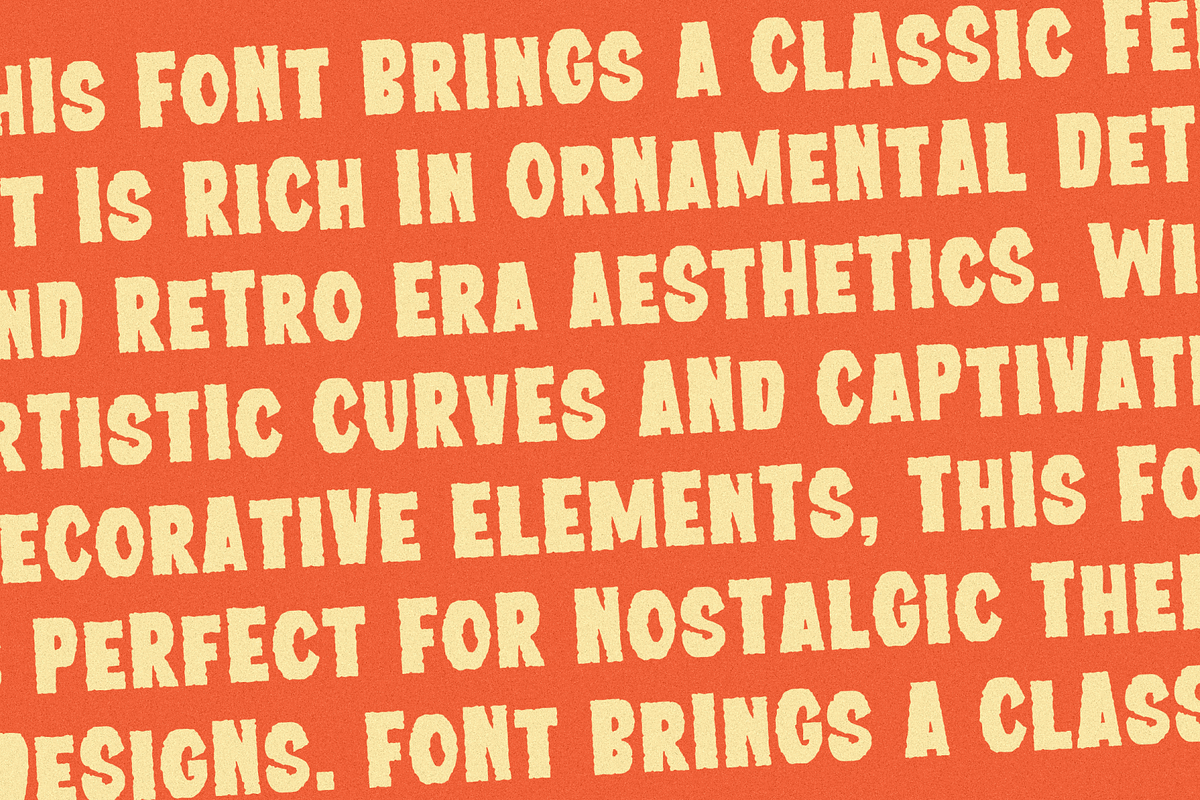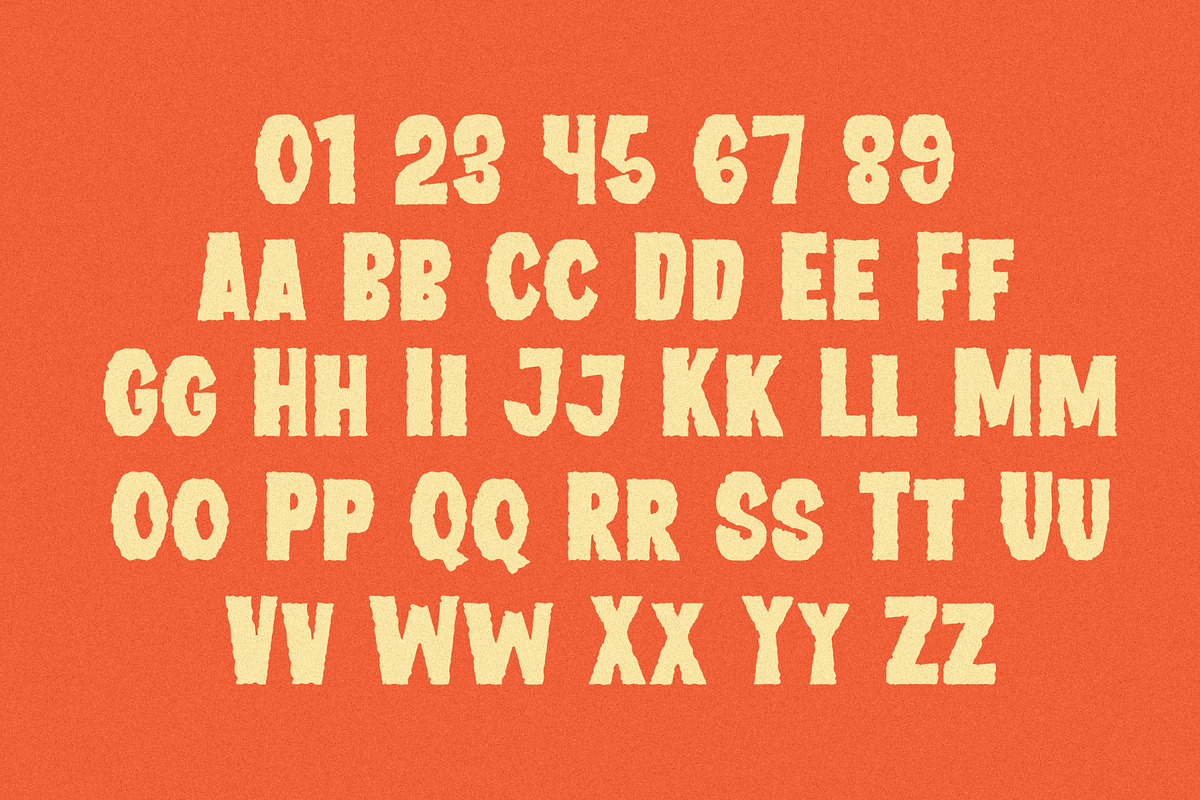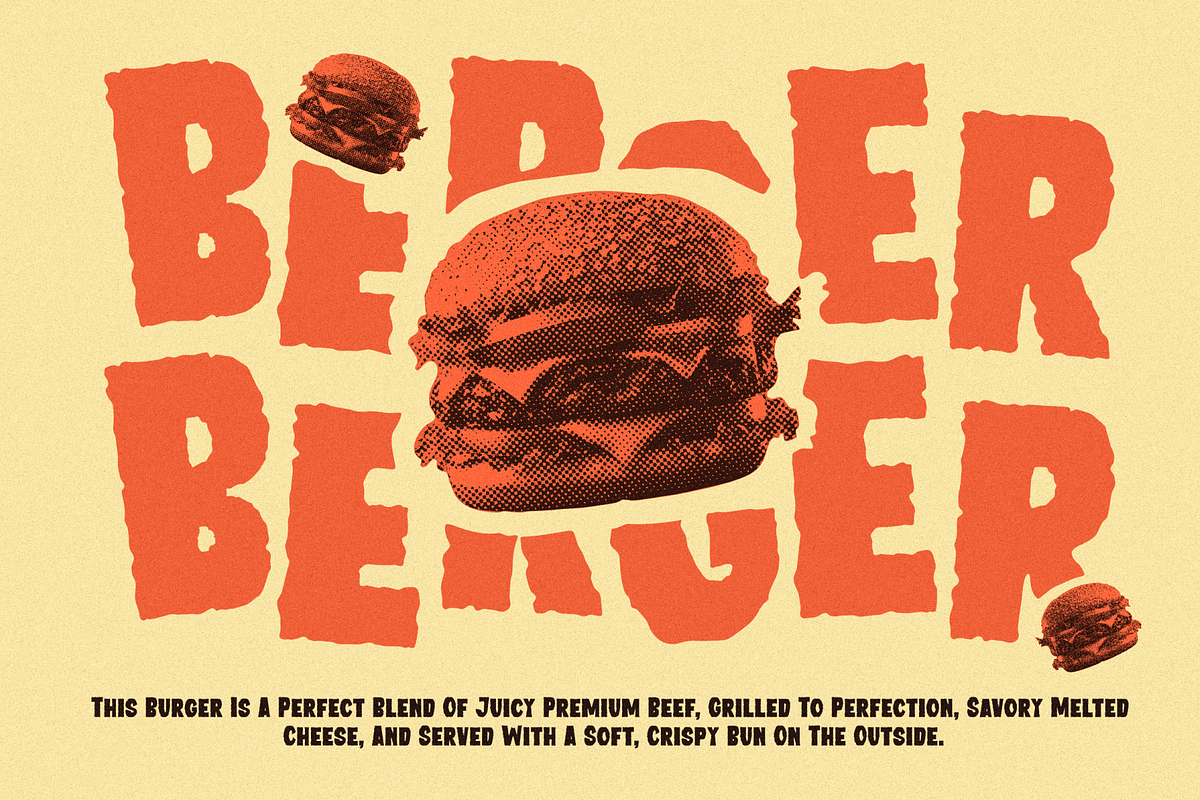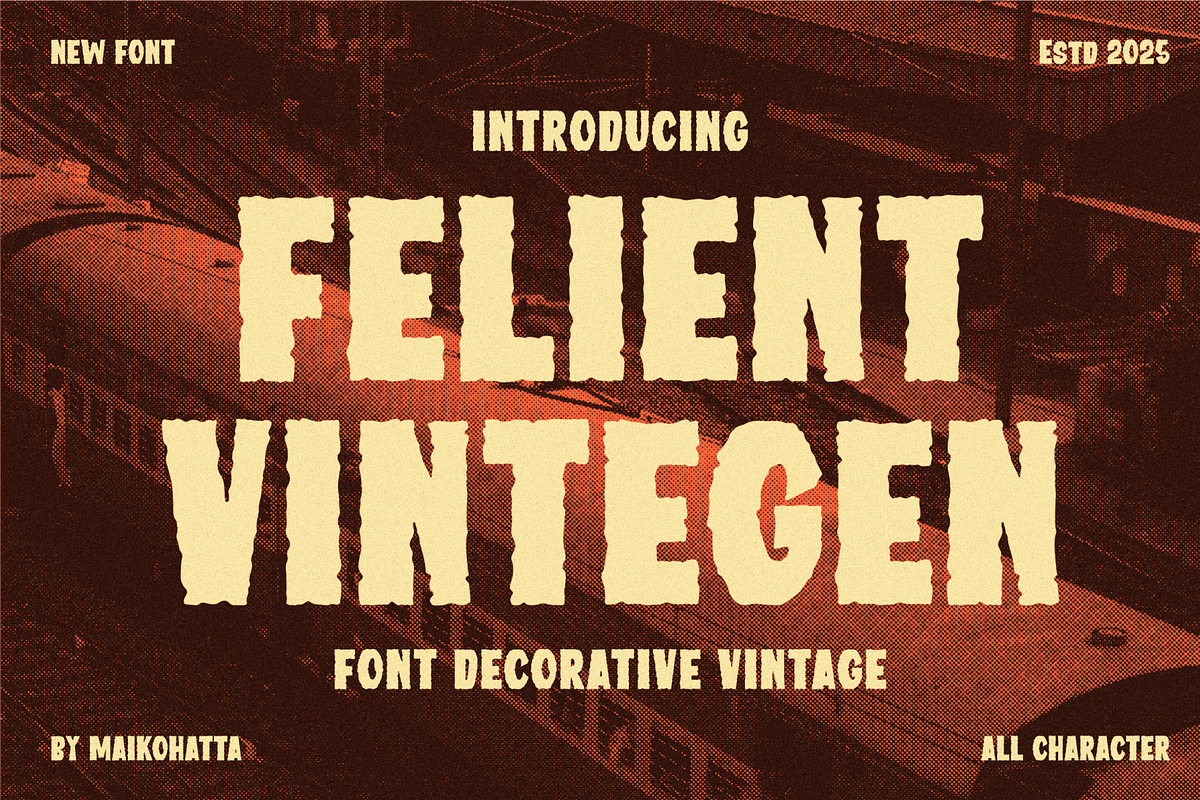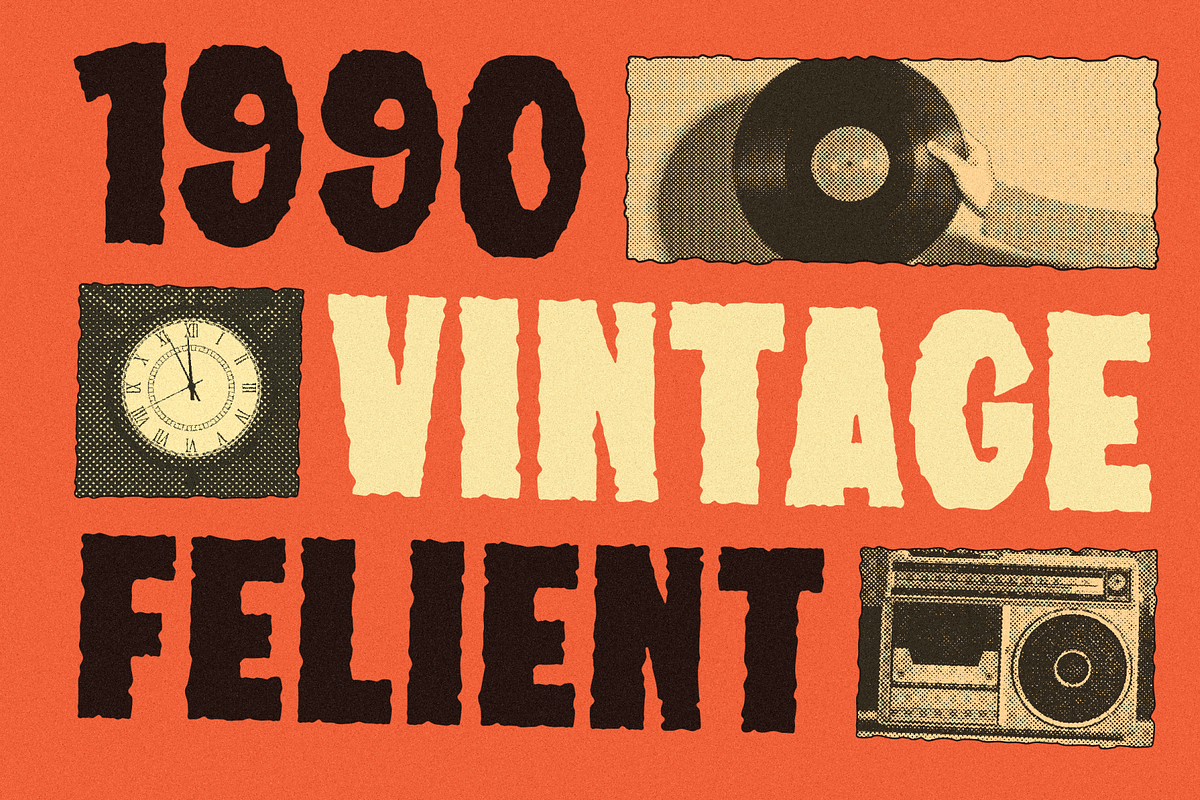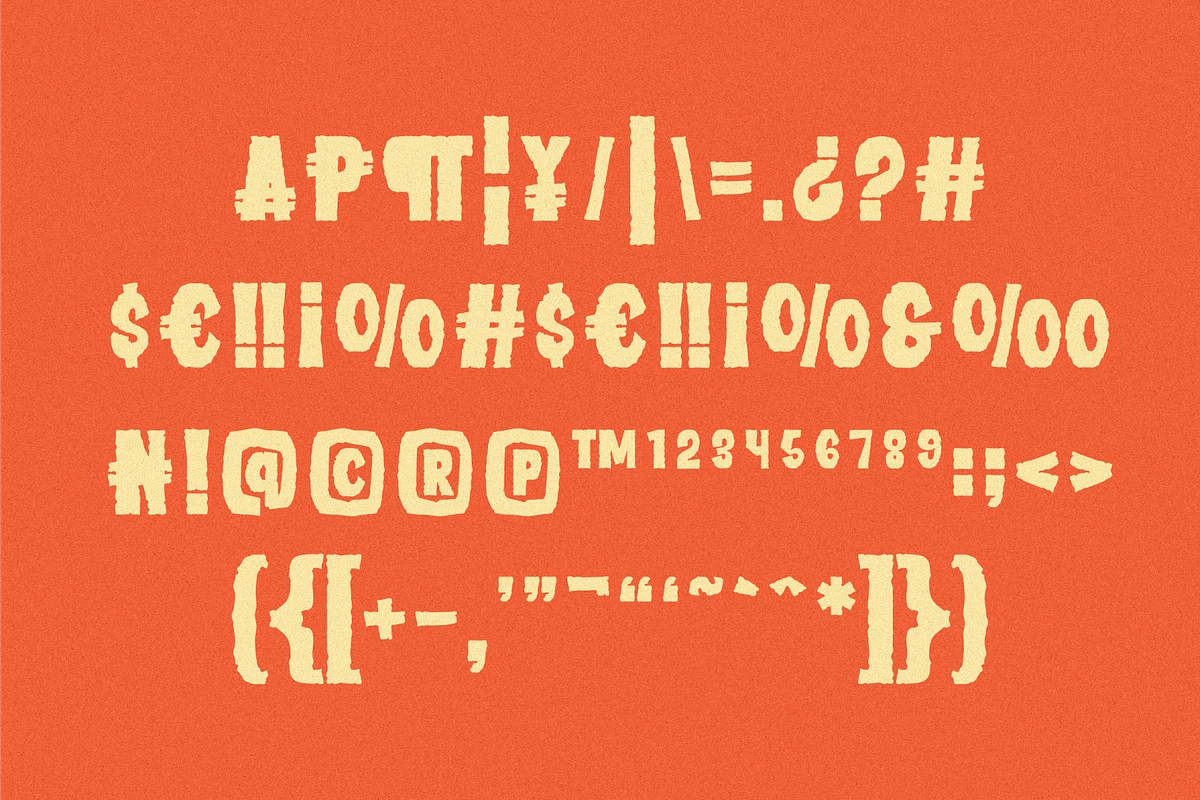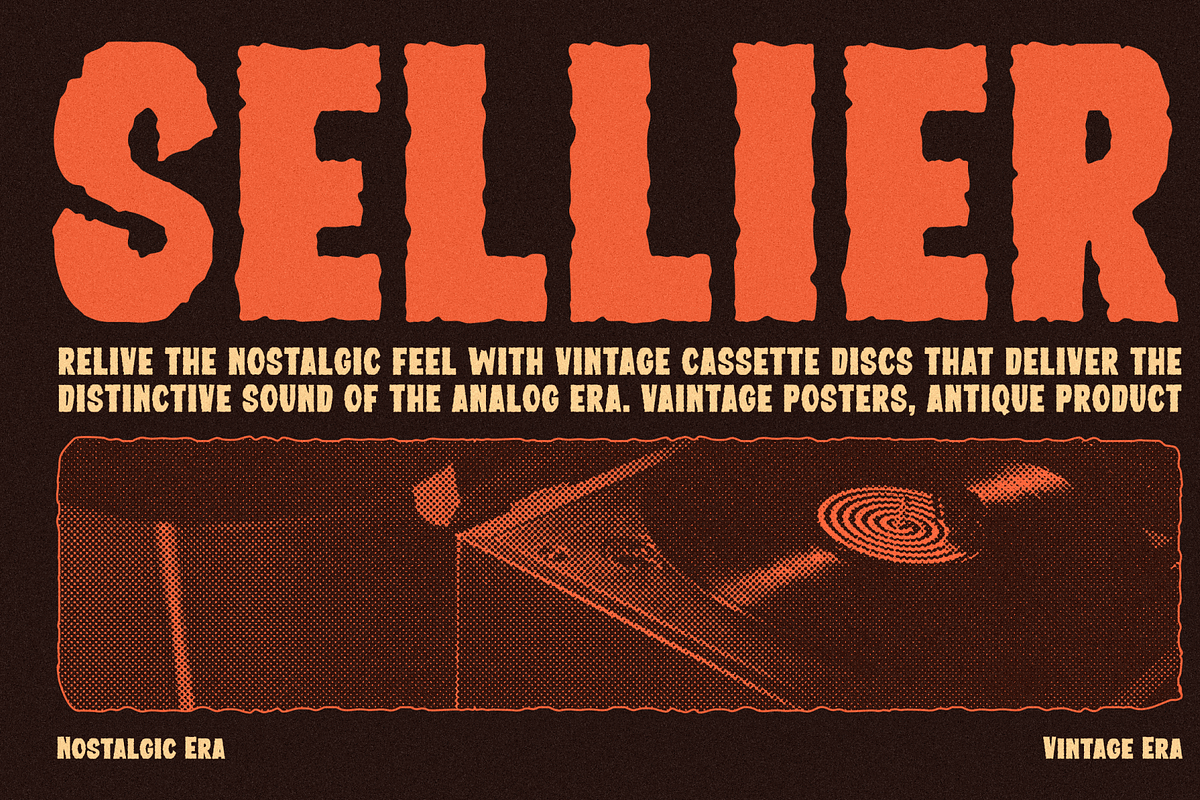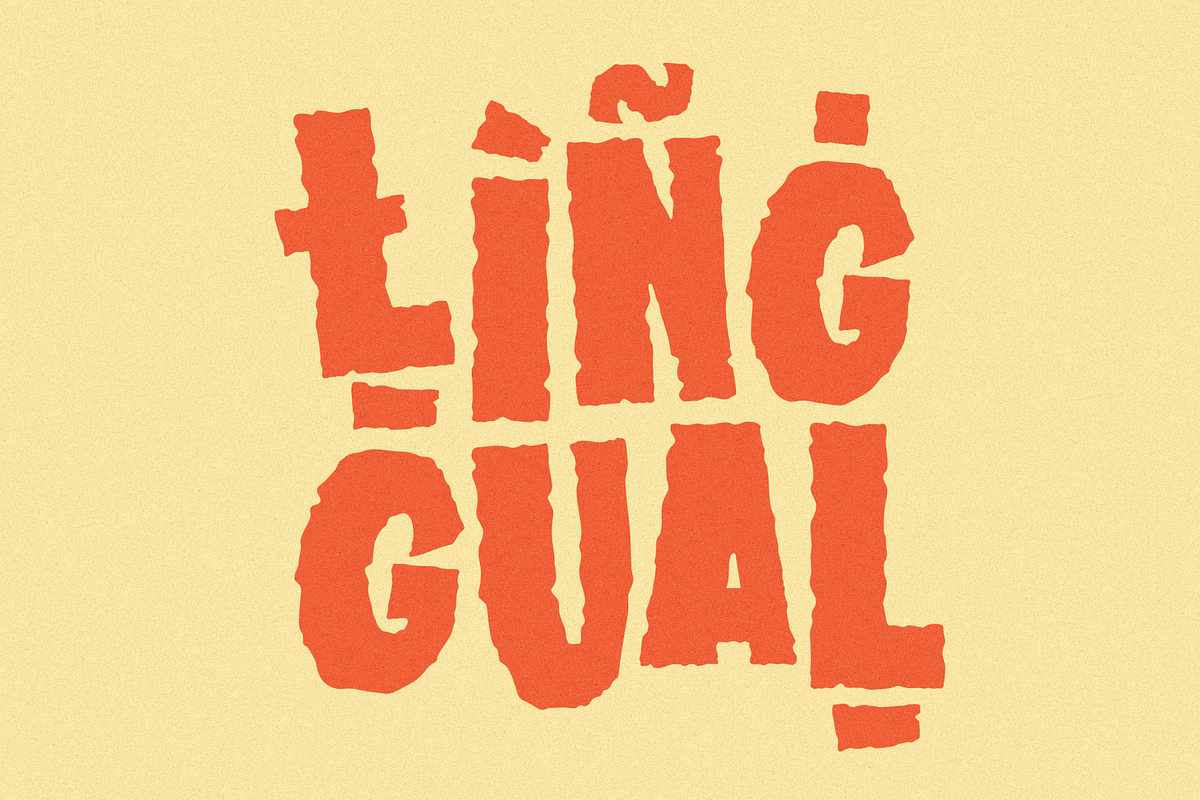
FelientVintegen - Decorative Vintage
Introducing our new product Felient Vintegen - Decorative Vintage Font
Felient Vintegen - Decorative Vintage Font is a distinctive typeface embodying the classic ransom style, blending vintage aesthetics with a gritty, rebellious edge. This font is particularly suitable for designs that require a bold, unconventional look and is available in three versatile options.